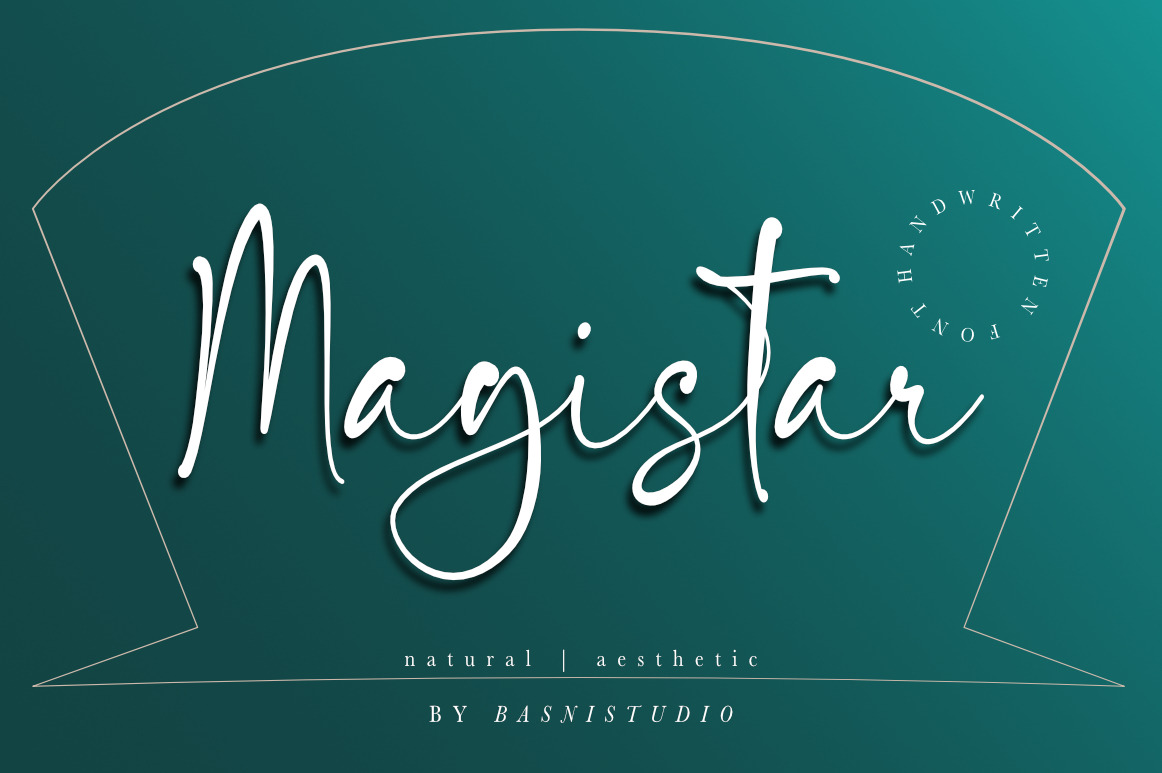
Magistar- Handwritten Font
Introducing Magistar, Handwritten Font
Magistar is Natural, Aesthetic & Modern handwritten font, made with details and precision, perfect for branding, websites, design invitation, and editorial designs. Includes all upper and lower case letters, multilingual support, punctuation, binding. everything can be easily accessed using software that supports OpenType. What’s include: